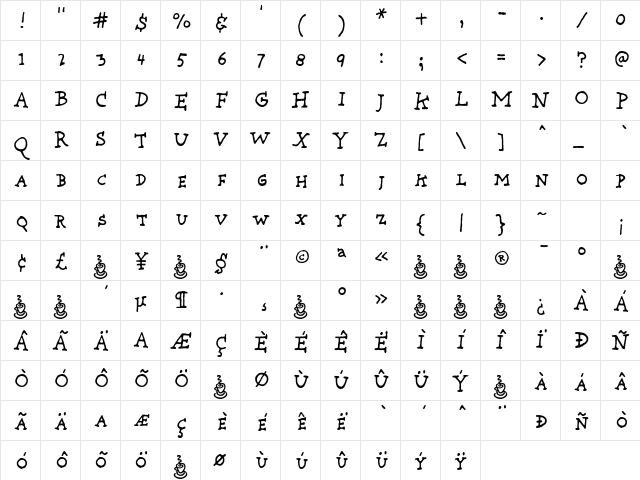
Providence Caps Regular
Design Context for Providence Caps Typeface
Providence Caps takes a measured approach to typography — its balanced proportions and neutral character make it a reliable workhorse for both digital and print work.